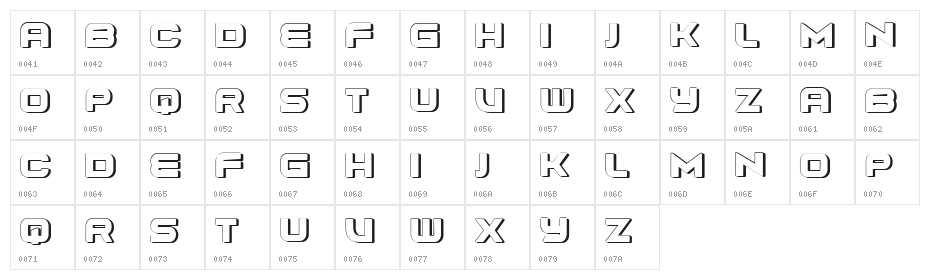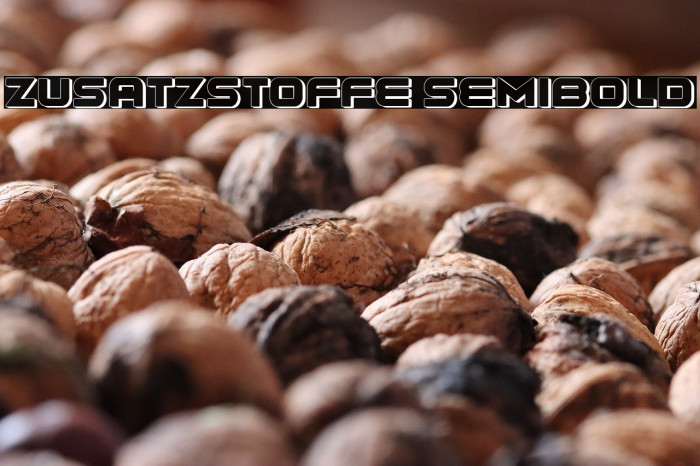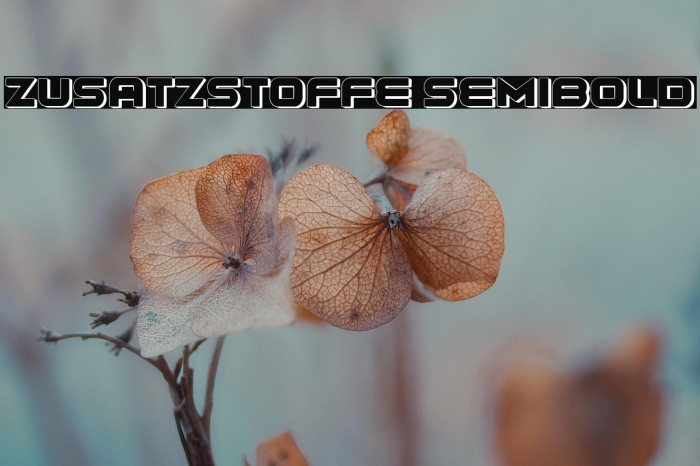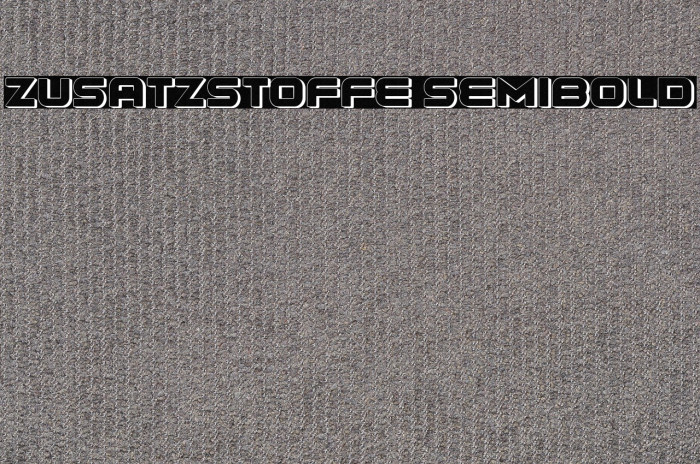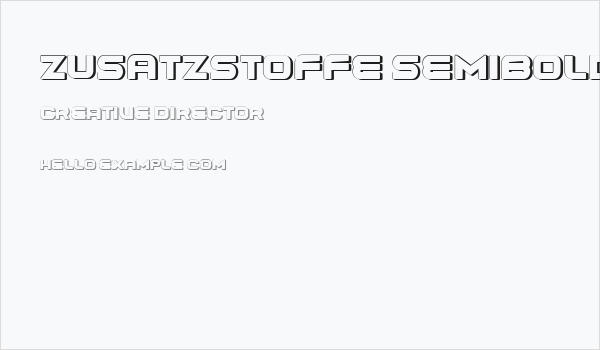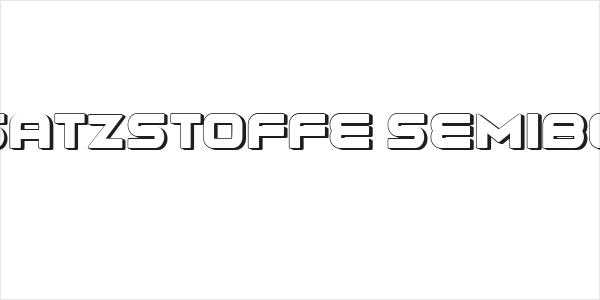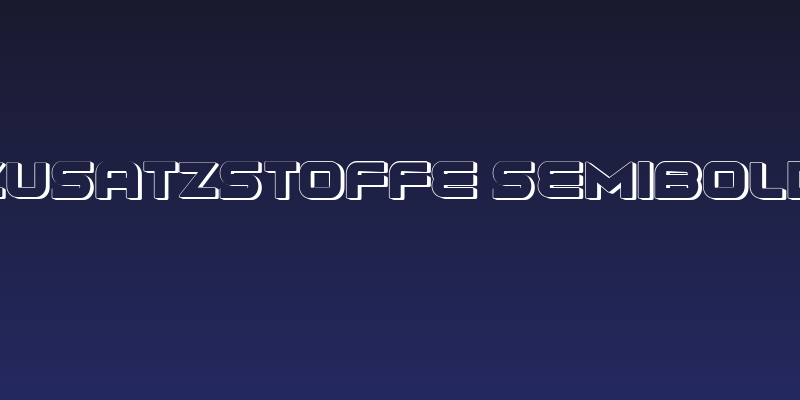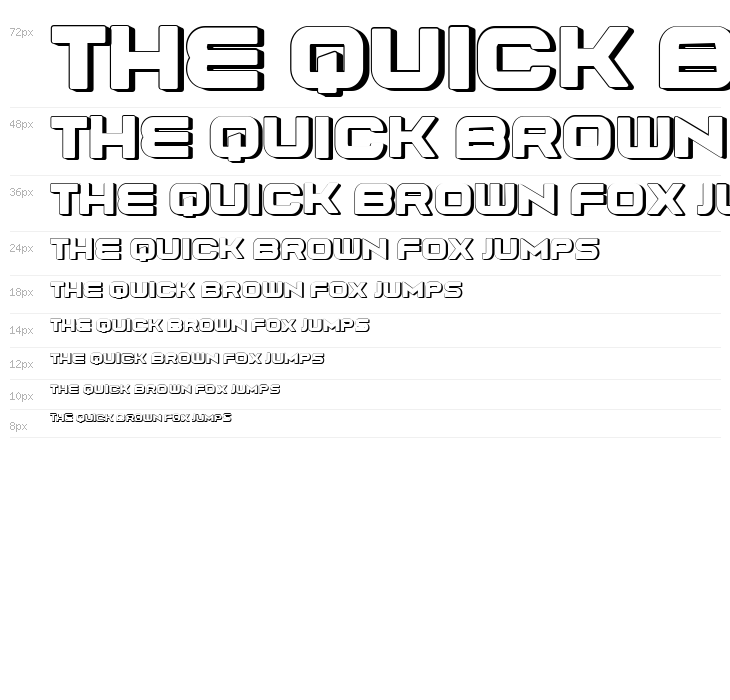
Zusatzstoffe SemiBold Font
Zusatzstoffe SemiBold Description
This font features a bold, geometric design with a modern and futuristic aesthetic. The characters are outlined, giving them a three-dimensional appearance that adds depth and interest. The uppercase letters are uniform in height, with a consistent stroke width that enhances readability. The font includes unique characters such as '@' and '&', which are designed to match the overall style. The spacing between characters is normal, allowing for clear legibility. This font's distinct style makes it suitable for projects that require a contemporary and eye-catching look.
| Proposed Projects | Ideal for branding, posters, digital media, and any project needing a modern, standout typeface. |